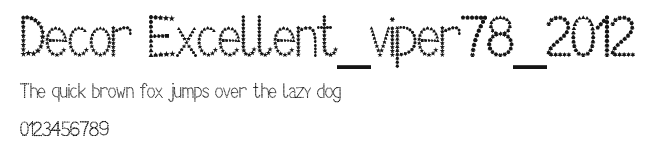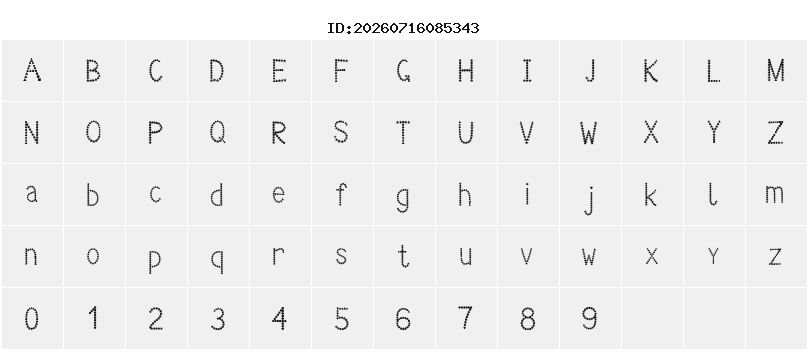
• Font Name: Decor Excellent_viper78_2012
• Designer: Lab-room for viper78 Clerical Office - viper78 aka Vlad Viperov, Volgograd 2012
• Description: Decorative Exotic fonts for use in all places, more qualitative, than font "Decor viper78_8_august_2012"
About Decor Excellent_viper78_2012.ttf
Decor Excellent_viper78_2012.ttf is a modern, elegant sans-serif font designed for ultimate readability and visual harmony. Perfect for branding, headlines, web design, and print materials.